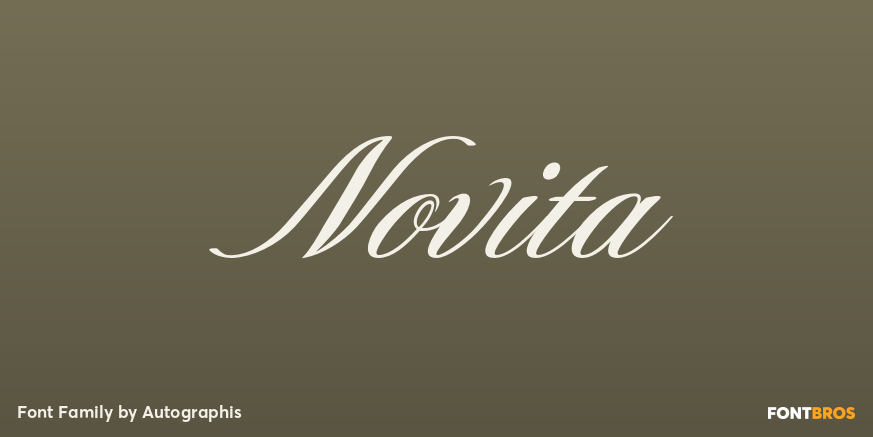
HomeFont BrosScripts: CasualNovita Scripts: CasualScripts: Formal Novita FacebookXPinterestWhatsApp 1 of 1 About Novita Novita is a new something. This font is a new very elegant ? extremely slanted ? joining script with long ascenders and descenders. It is the fianc  DOWNLOAD NOW People also explored Corestairs Font Miss Gendhis Font Effendi Font Hello Avocado Font Snowman Font Allesandria Font Bellezza Black Font California Font Making Mountains Font 260 0 TagsNovitaNovita Font Previous articleHedgerowNext articleKon Tiki Enchanted LEAVE A REPLY Cancel reply Comment: Please enter your comment! Name:* Please enter your name here Email:* You have entered an incorrect email address! Please enter your email address here Website: Save my name, email, and website in this browser for the next time I comment. Personal Use Free BD Algebra Personal Use Free Read more about this font Wildwest Personal Use Free Read more about this font Vincent Familiante Personal Use Free Read more about this font Creativo Personal Use Free Read more about this font BLOG 5 Fonts That Will Dominate Design Trends in 2026 5 Fonts for 2026 That Will Dominate Design Trends Typography plays a critical role in visual communication, and as we look ahead to 2026, it’s... Using Fonts in Digital Marketing: Tips to Strengthen Your Brand Identity Fonts That Capture the Spirit of New York City Free Fonts Risk: Why Free Fonts Can Be Dangerous for Designers